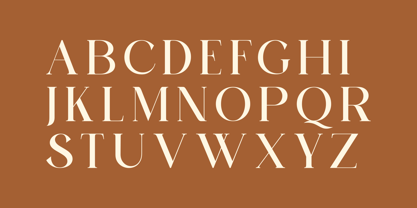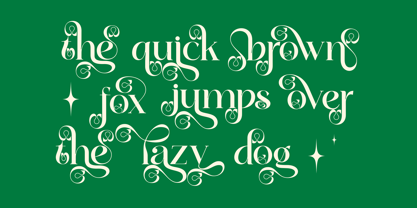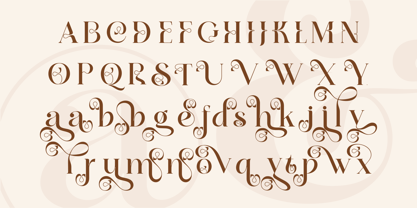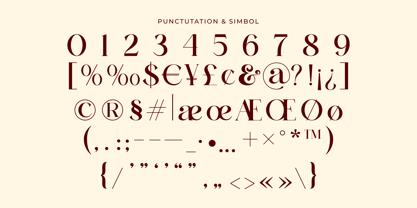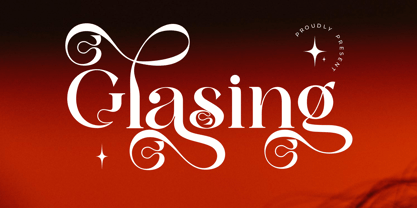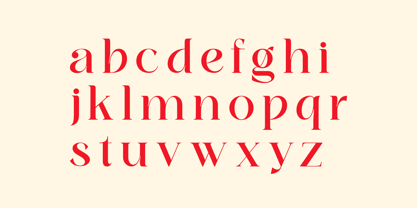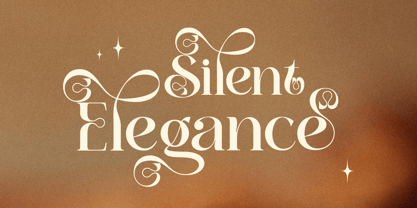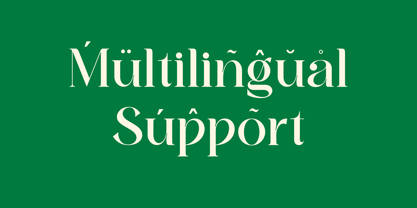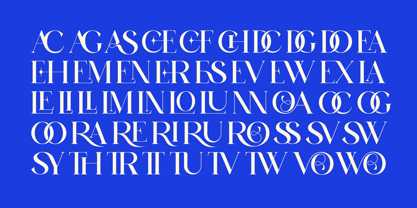
Glasing
Die Schriftfamilie Glasing wurde von Ju Naen entworfen und von Zaain Type veröffentlicht. Glasing enthält 1 Stile.
Glasing is a serif typeface that blends timeless elegance with a modern touch. Its refined contrasts and graceful serif details make it perfect for editorial design, branding, magazines, and packaging that seek a sophisticated and professional look. Designed with balance and style, Glasing brings a sense of luxury and classic charm to both headlines and body text